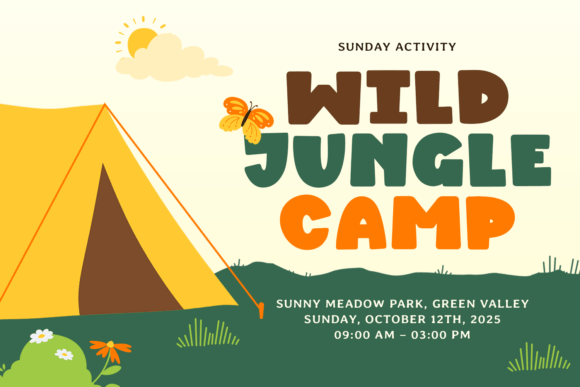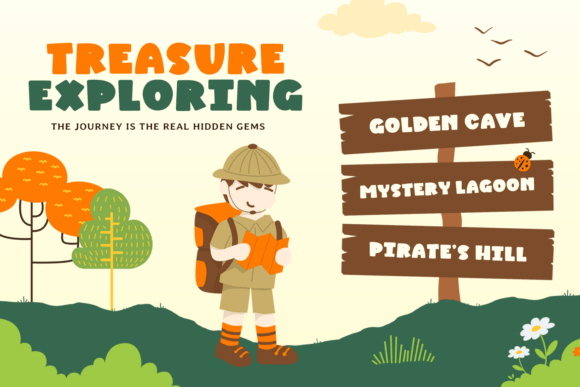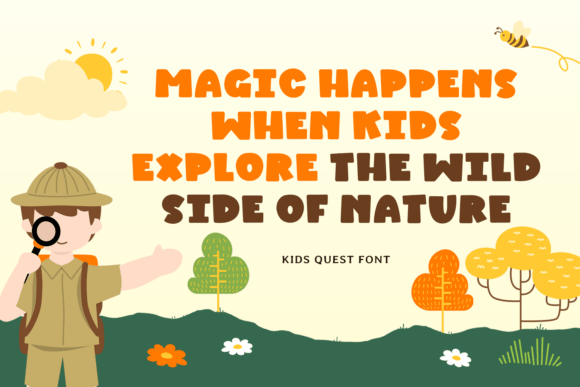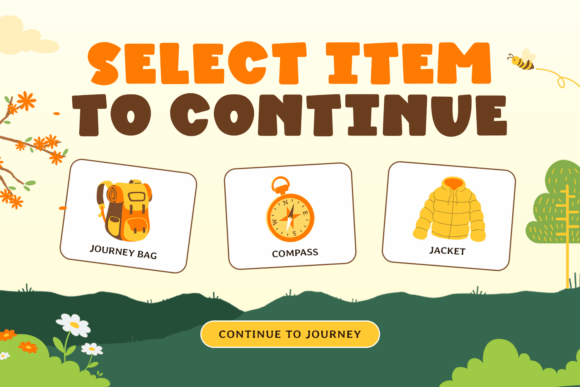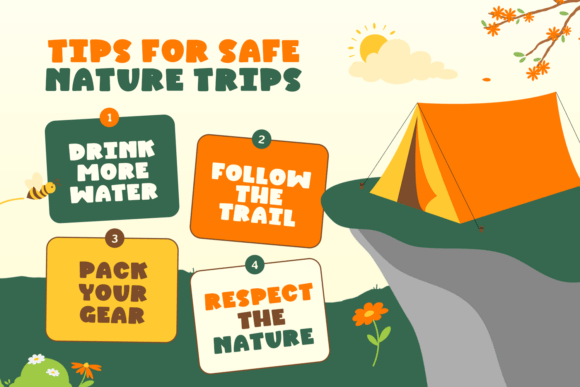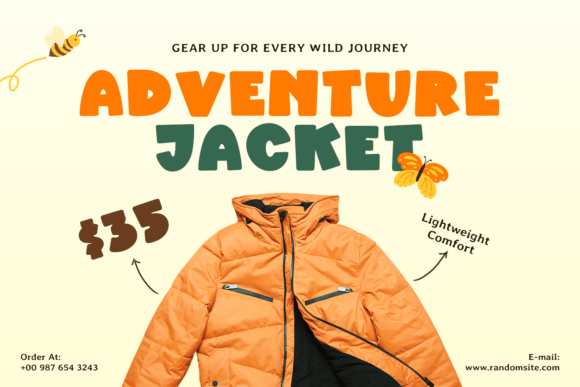
Introduction to Kidz Quest Font
Kidz Quest is a bold and adventurous display typeface designed to spark imagination and exploration.
With playful shapes and a fun, handcrafted look, this font captures the excitement of discovery—perfect for children’s adventures, educational themes, and creative branding Inspired by the spirit of curiosity and outdoor exploration, Kidz Quest brings a joyful sense of wonder to every project.
Key Features of Kidz Quest Font
Why Choose Kidz Quest Font?
Kidz Quest Font offers exceptional quality and versatility, making it a valuable addition to your design toolkit. Whether you’re creating for personal projects or commercial use, Kidz Quest Font delivers professional results.